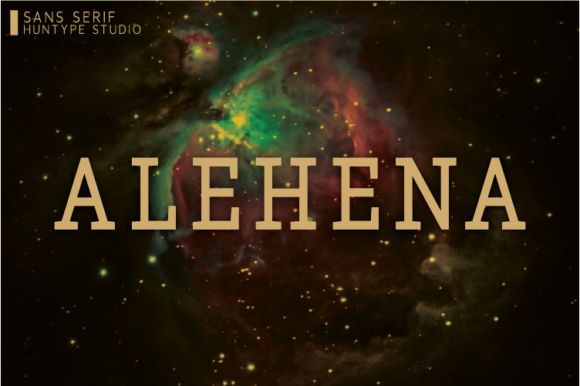
Unleash the Power of Expression with Alehena: A Serif Font Family That Commands Attention
In a digital world saturated with monotonous fonts, Alehena emerges as a beacon of distinction, a font family that speaks to your creative soul, demanding attention with its clean, authentic, and bold serif design. Crafted by the visionary team at Huntype, Alehena isn't just a font; it's an extension of your individuality, amplifying your message with unparalleled elegance and sophistication.
Step into a realm of boundless creativity, where the ordinary transforms into the extraordinary with Alehena. This font family is not merely a collection of letters; it's an arsenal of artistic tools, empowering you to sculpt your words into visual masterpieces. Whether you're a seasoned designer or a budding enthusiast, Alehena will ignite your imagination, inspiring you to create designs that resonate, designs that leave a lasting impression.
With Alehena, every project becomes a canvas upon which you paint your vision. Its clean lines and authentic charm lend an air of timeless sophistication to your creations, while its bold strokes command attention, ensuring your words never go unnoticed. Logos, posters, branding materials—Alehena effortlessly elevates each project, imbuing it with a sense of purpose and distinction.
But Alehena's allure extends far beyond its aesthetic appeal. It's a font family imbued with versatility, adapting seamlessly to a myriad of design styles and genres. From the delicate intricacies of wedding invitations to the bold statements of marketing campaigns, Alehena effortlessly transitions from one realm to another, always retaining its captivating charm.
So, if you seek a font family that transcends mediocrity, a font family that will ignite your creativity and propel your designs to new heights, look no further than Alehena. Its clean, authentic, and bold serif design will captivate your audience, leaving them spellbound by your creations. Unleash the power of expression with Alehena and embark on a journey of visual storytelling that will leave an indelible mark on the digital landscape.